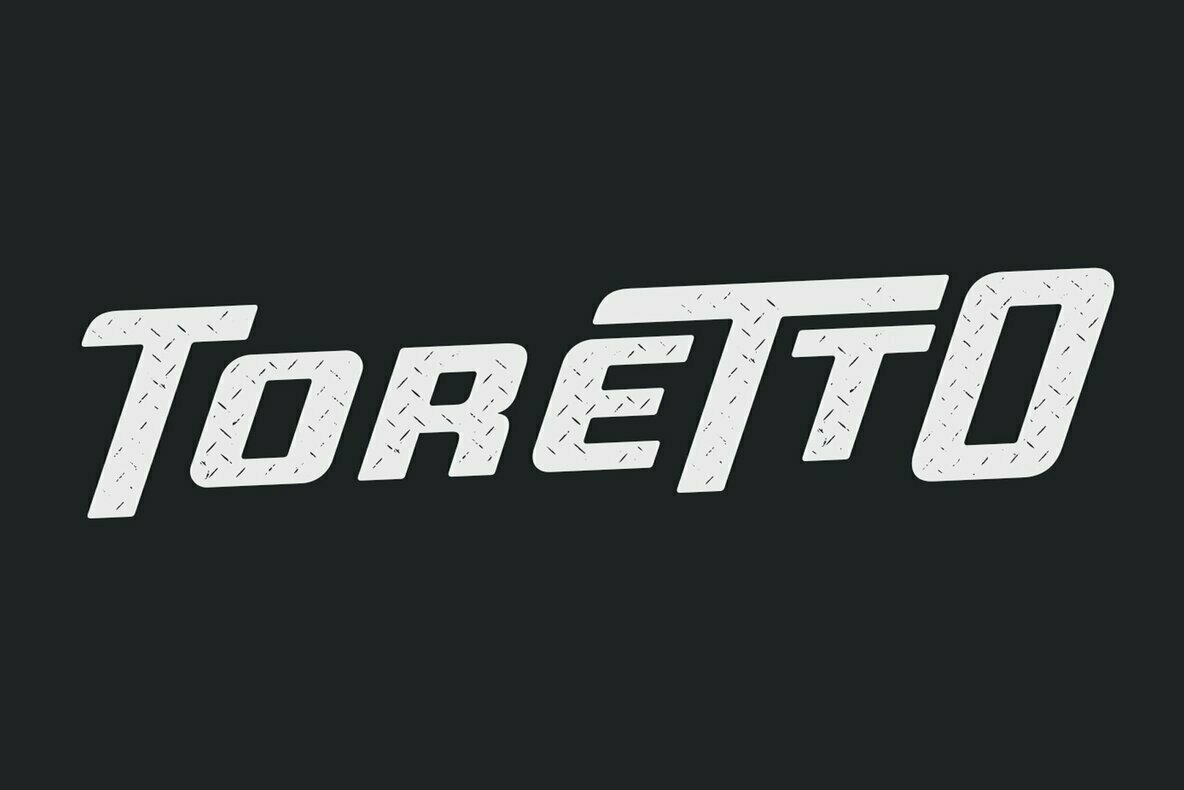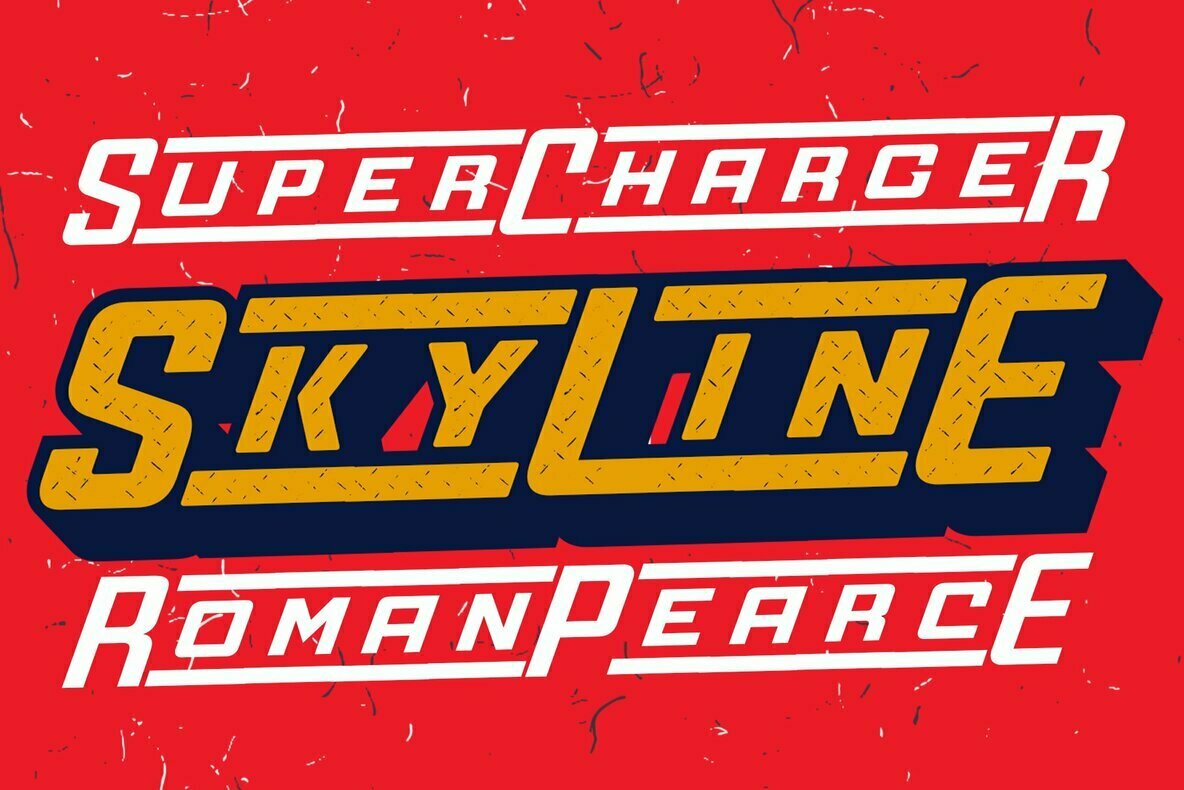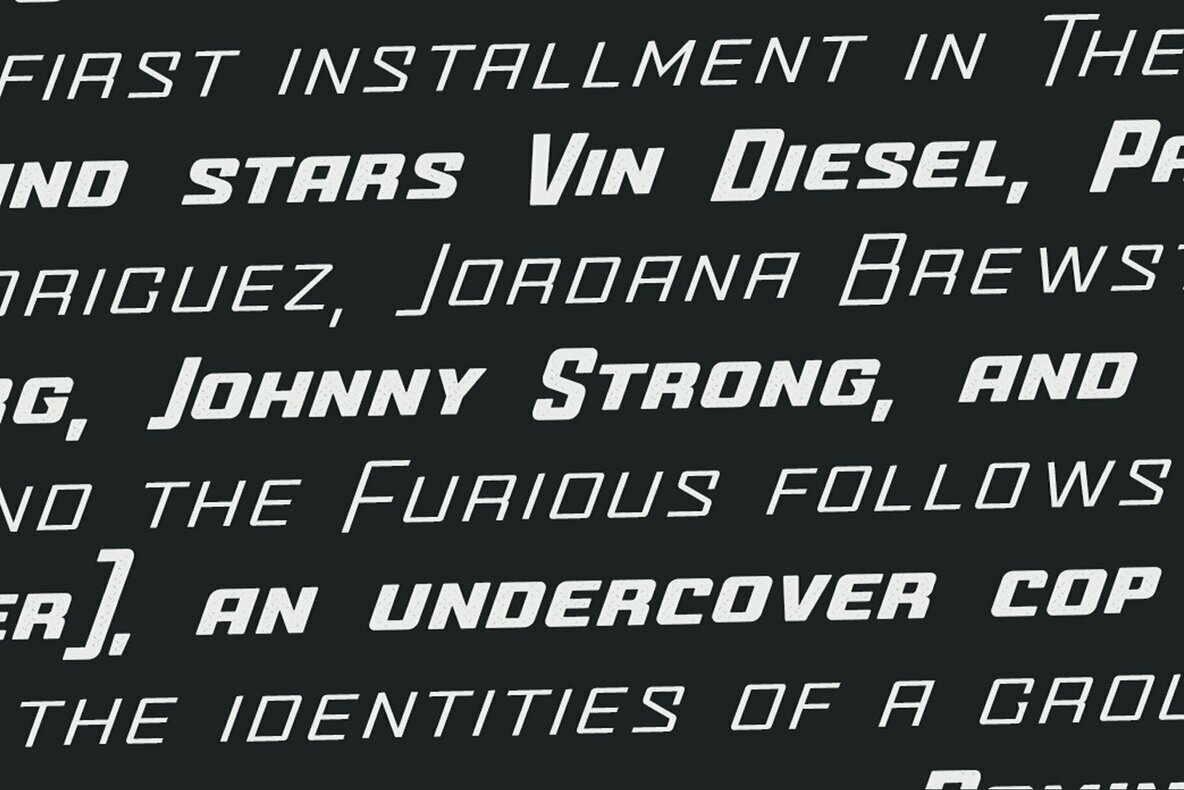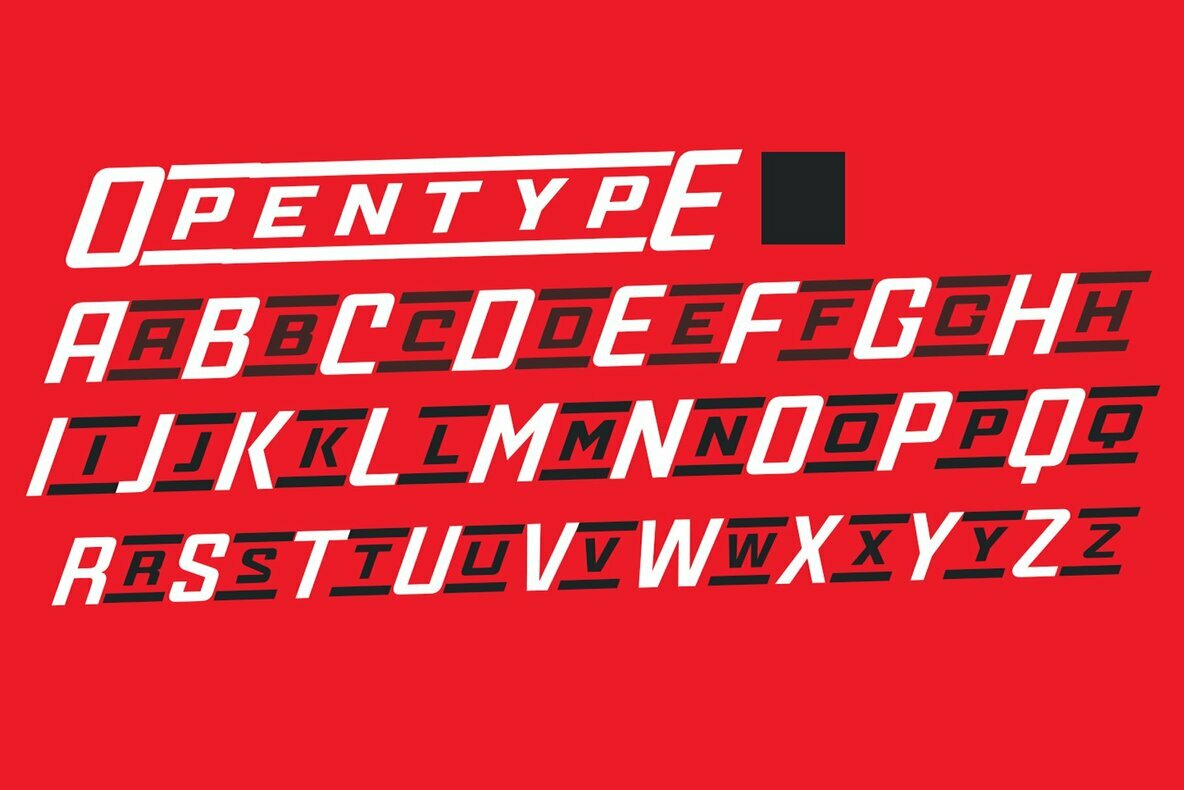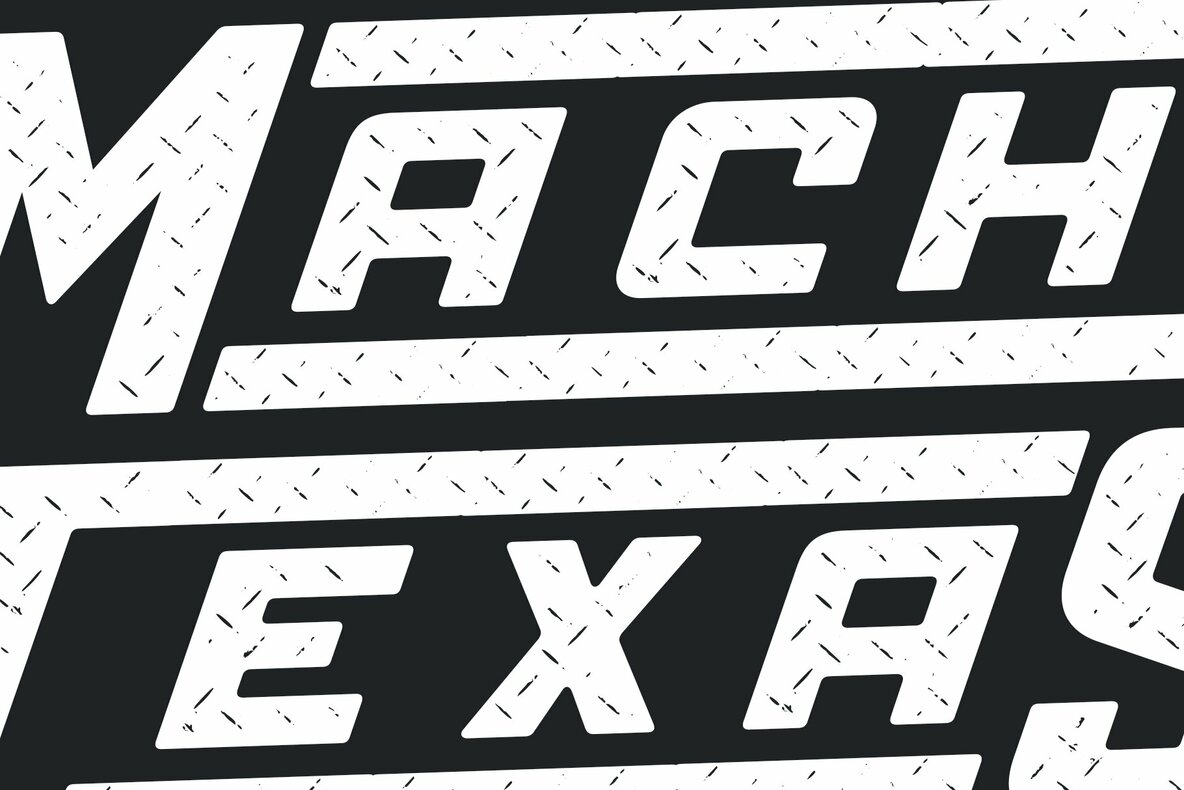
Tunning Font
Tunning, designed by Rodrigo Salas and released by Rodrigo Typo, is a vibrant sans-serif font family tailored for eye-catching displays. Its ensemble of seven distinct styles provides creative flexibility for brand identities, packaging, and digital interfaces. Crafted with attention to detail, each style in the Tunning family contributes to a cohesive, yet versatile typographic solution.Tunning: A Playful Display Sans Font Family